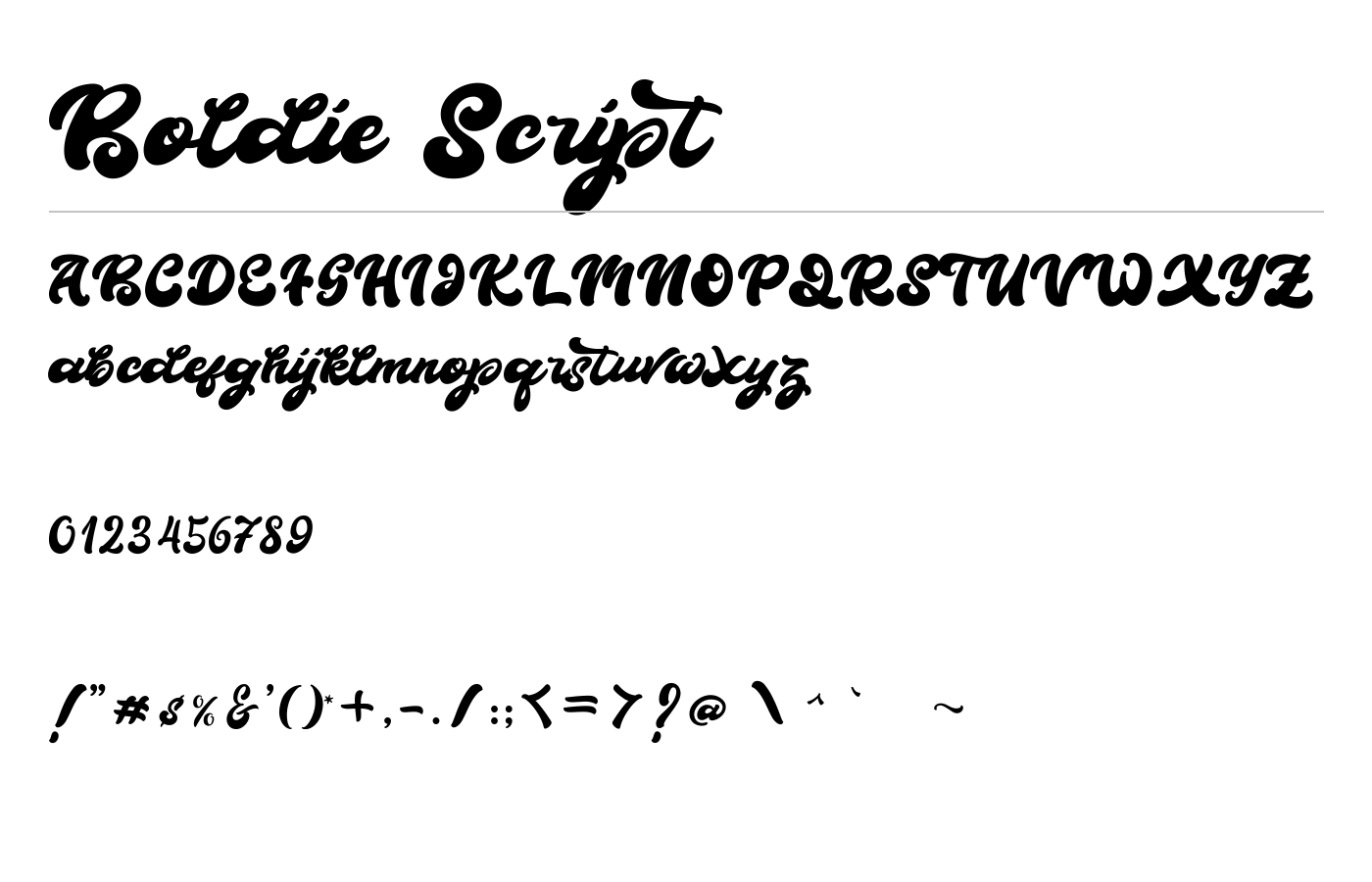
Boldie Script is a bold, playful script font with smooth, rounded shapes and a lively, hand-brushed feel. Its thick strokes and connected letterforms make it ideal for eye-catching headlines, branding, and packaging that want to convey energy and friendliness. This font works best in creative, casual contexts where a warm, approachable vibe is desired.
Boldie Script Font
About Boldie Script Font
| Font family | Boldie Script Font |
| Designer | thirtypath |